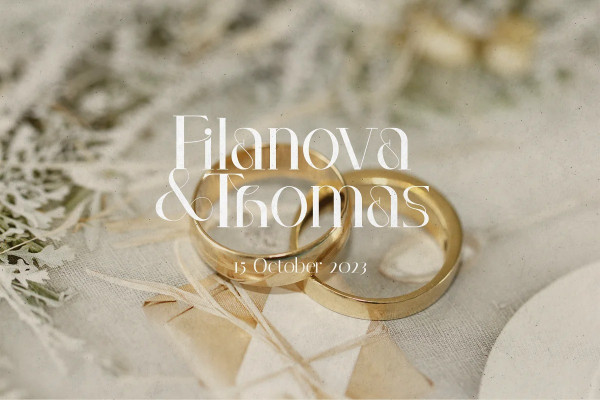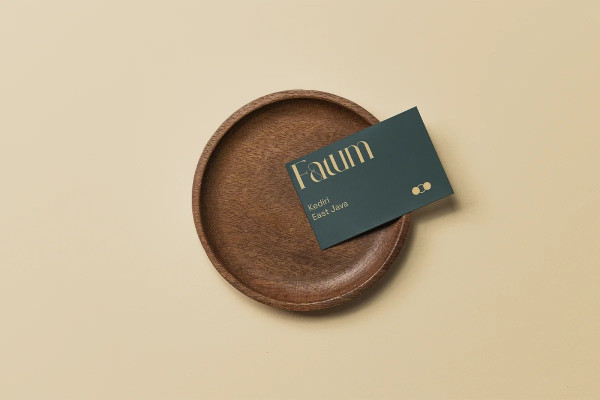
Fatmawati Font
Fatmawati Font is an exquisite serif font that effortlessly blends elegance and glamour. With its refined and sophisticated design, this font exudes a timeless charm that is perfect for creating luxurious and upscale designs. The meticulously crafted serifs add a touch of classic beauty, while the sleek and slender letterforms evoke a sense of refined elegance. Fatmati’s graceful curves and precise detailing make it a standout choice for projects that require a touch of sophistication, such as high-end branding, editorial layouts, fashion magazines, and elegant invitations. Embrace the allure of Fatmati and elevate your designs with its captivating and glamorous presence.